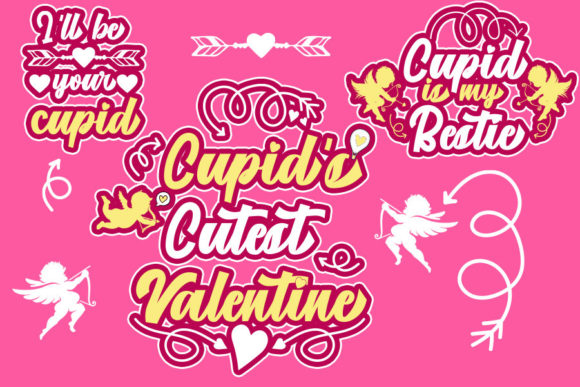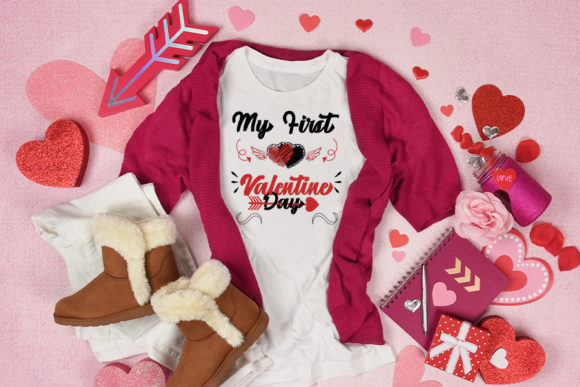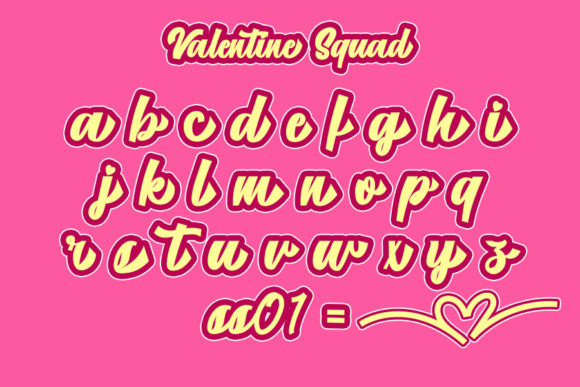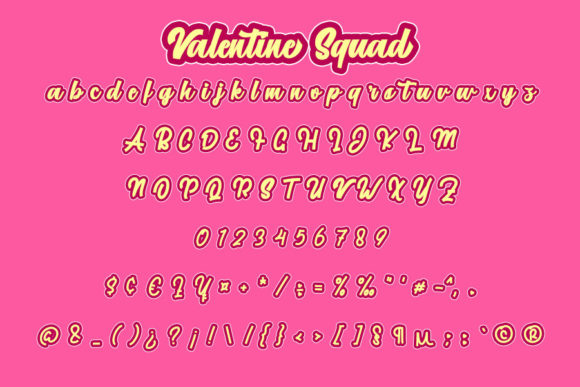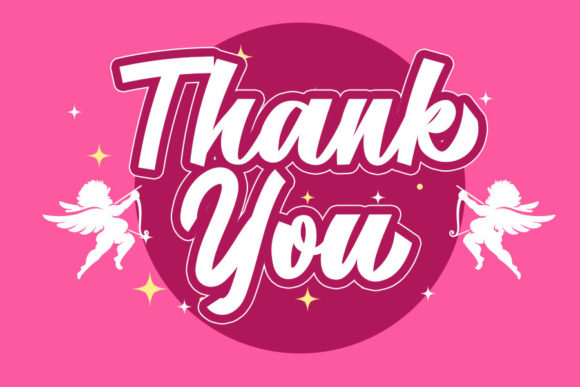
Valentine Squad Font
About Valentine Squad Font
Valentine Squad is an elegant handwritten font, featuring a nice flow. It has beautiful and well balanced characters and as a result, it matches a wide pool of designs. This font is PUA encoded which means you can access all of the glyphs and swashes with ease!